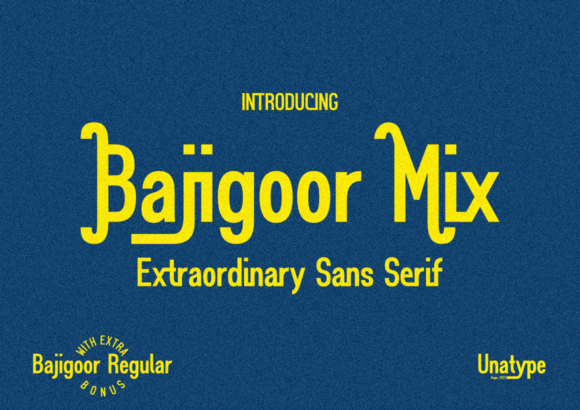
Unleash your creativity and make a statement with Bajigoor Mix Duo Font, the epitome of modern and extraordinary sans serif typography. Step into a world of boundless possibilities, where your designs take center stage and captivate audiences.
With its sleek and contemporary curves, Bajigoor Mix Duo Font exudes an air of sophistication and elegance. Its meticulously crafted characters dance across the screen, inviting you on an enchanting journey of visual storytelling. Whether you're a seasoned graphic artist or just starting your creative adventure, this font is your gateway to stunning designs that leave a lasting impression.
Dive into a sea of versatility with Bajigoor Mix Duo Font, a font that adapts effortlessly to a myriad of projects. From awe-inspiring wall posters that ignite inspiration to captivating logos that command attention, this font knows no bounds. Let your imagination soar as you explore the endless possibilities, transforming ordinary designs into masterpieces that captivate and inspire.
Embrace the power of expression with Bajigoor Mix Duo Font, the ultimate tool for communicating your brand's unique identity. Its striking presence adds a touch of distinction to your designs, ensuring that your message resonates with your audience. Make a bold statement, leave an unforgettable mark, and watch as your brand flourishes in the spotlight.
As an added bonus, Bajigoor Mix Duo Font is PUA encoded, granting you effortless access to a treasure trove of glyphs and ligatures. Unleash your creativity and let your designs shine with a brilliance that will leave them breathless.